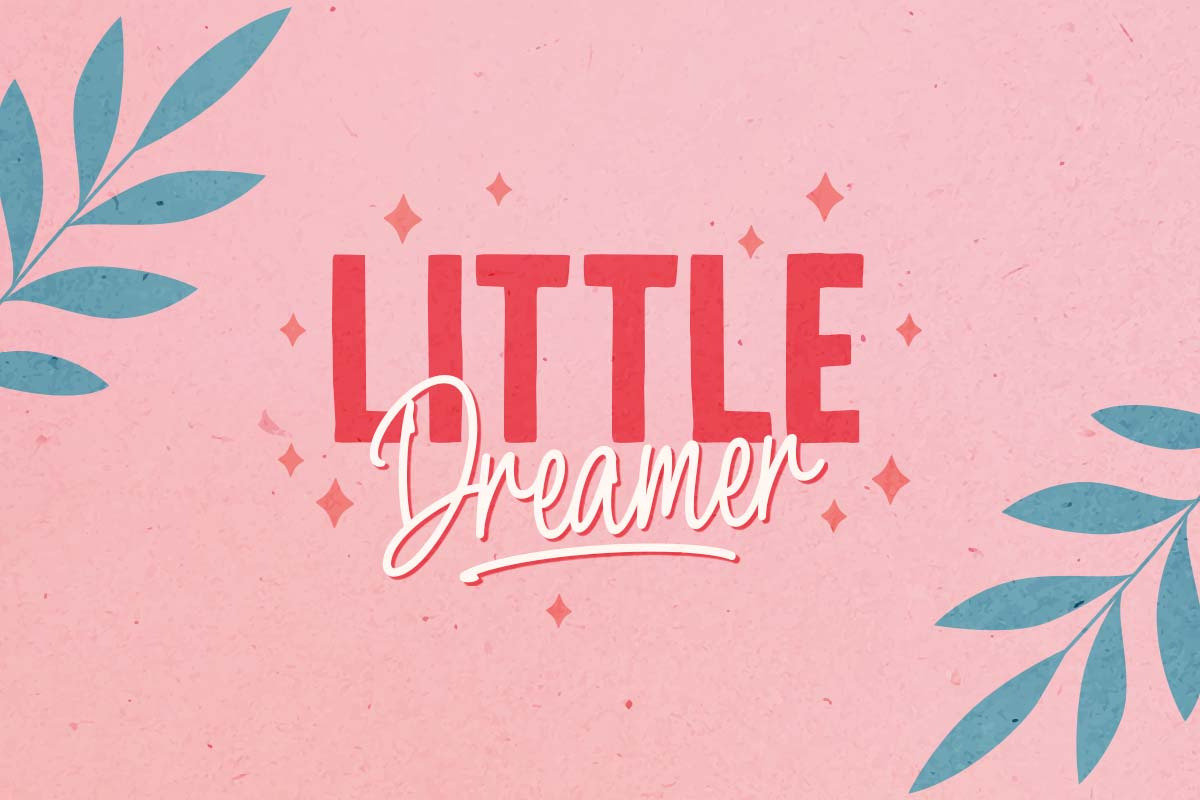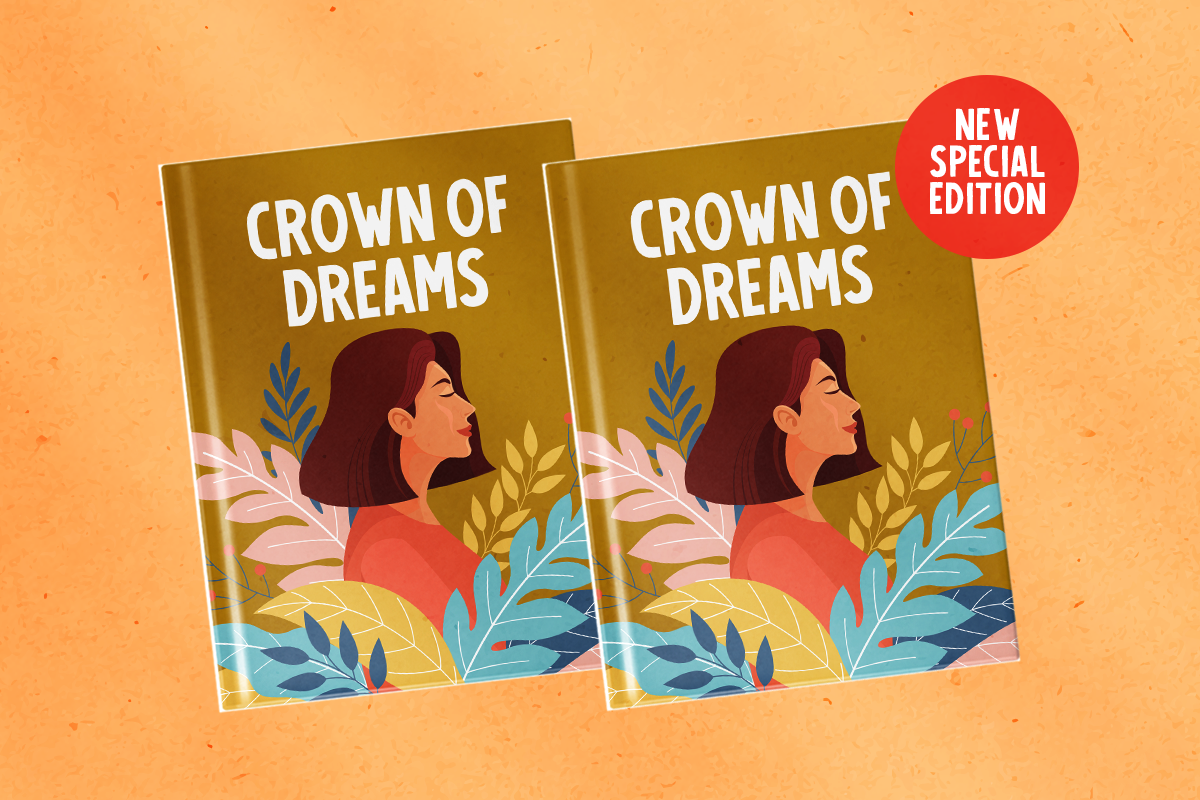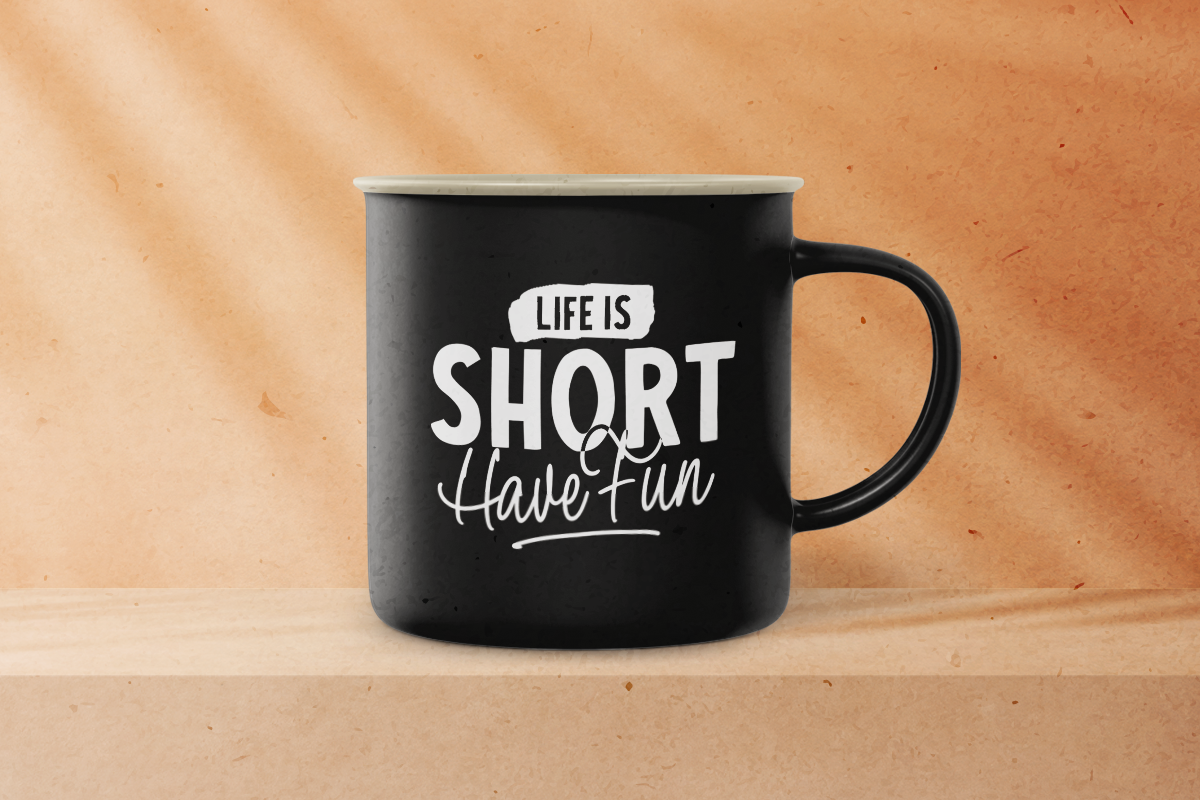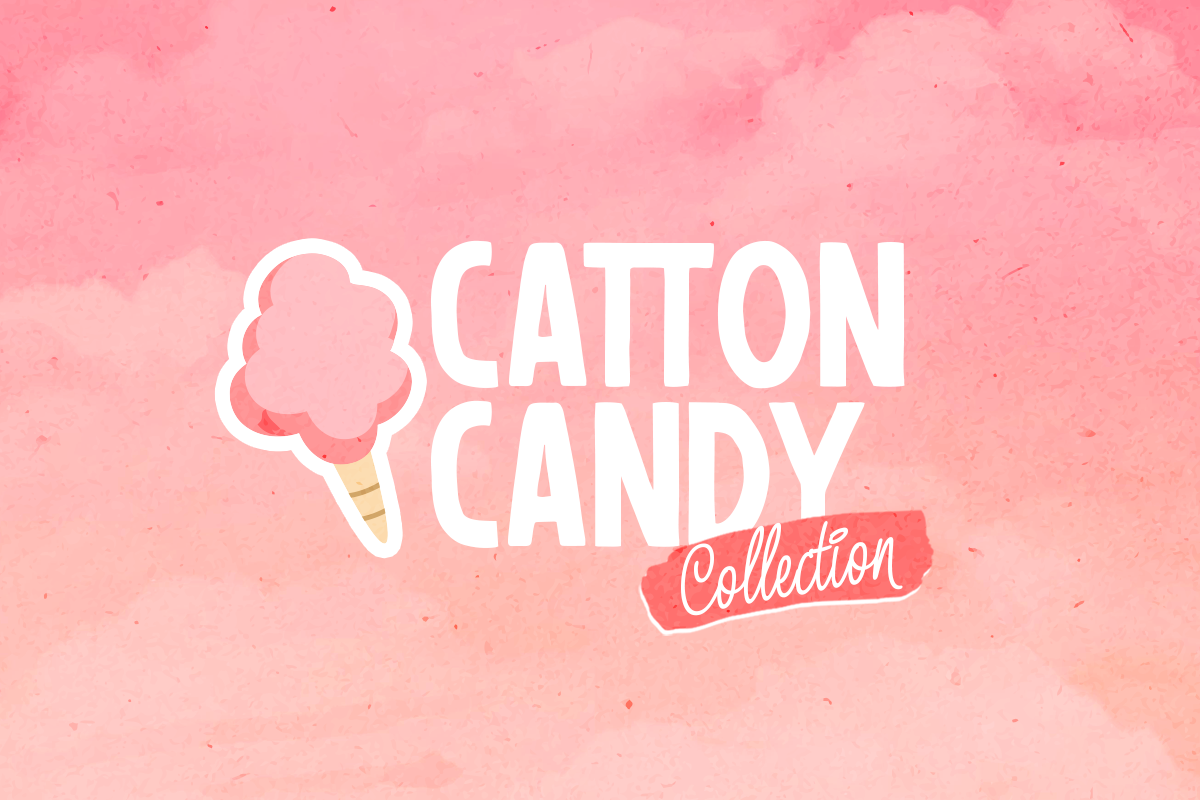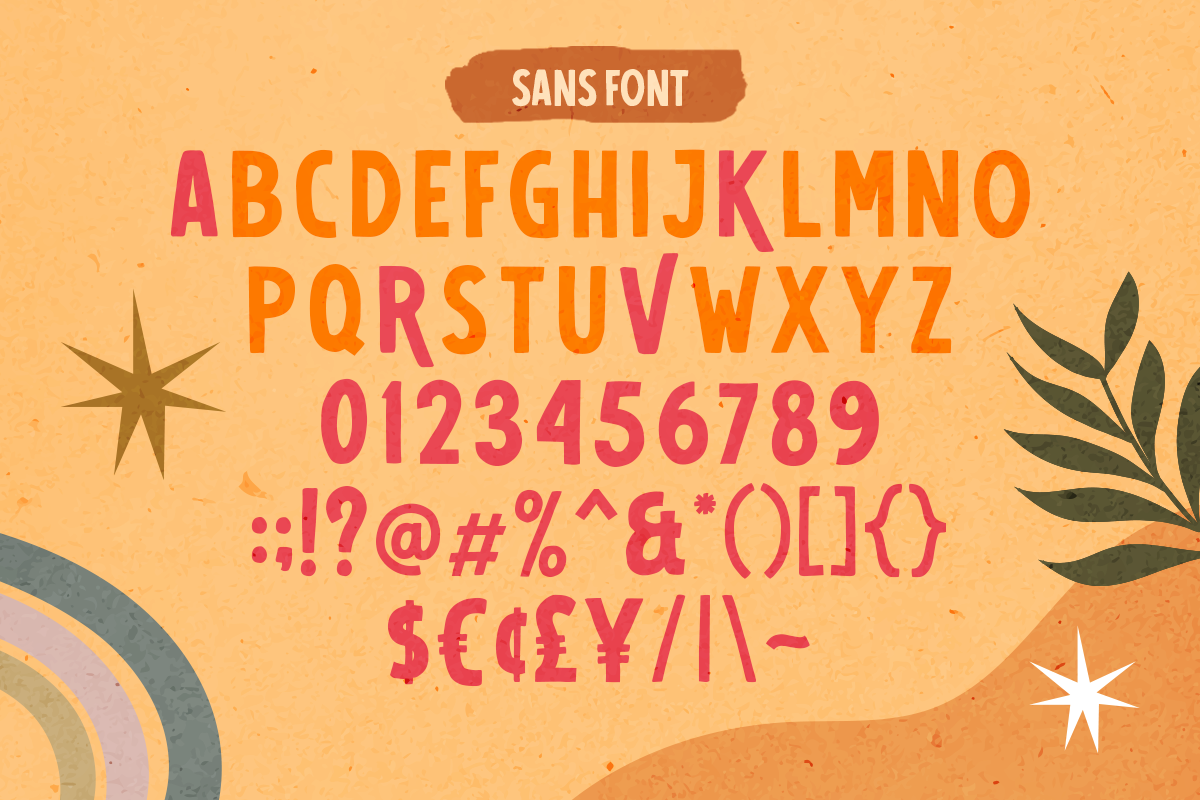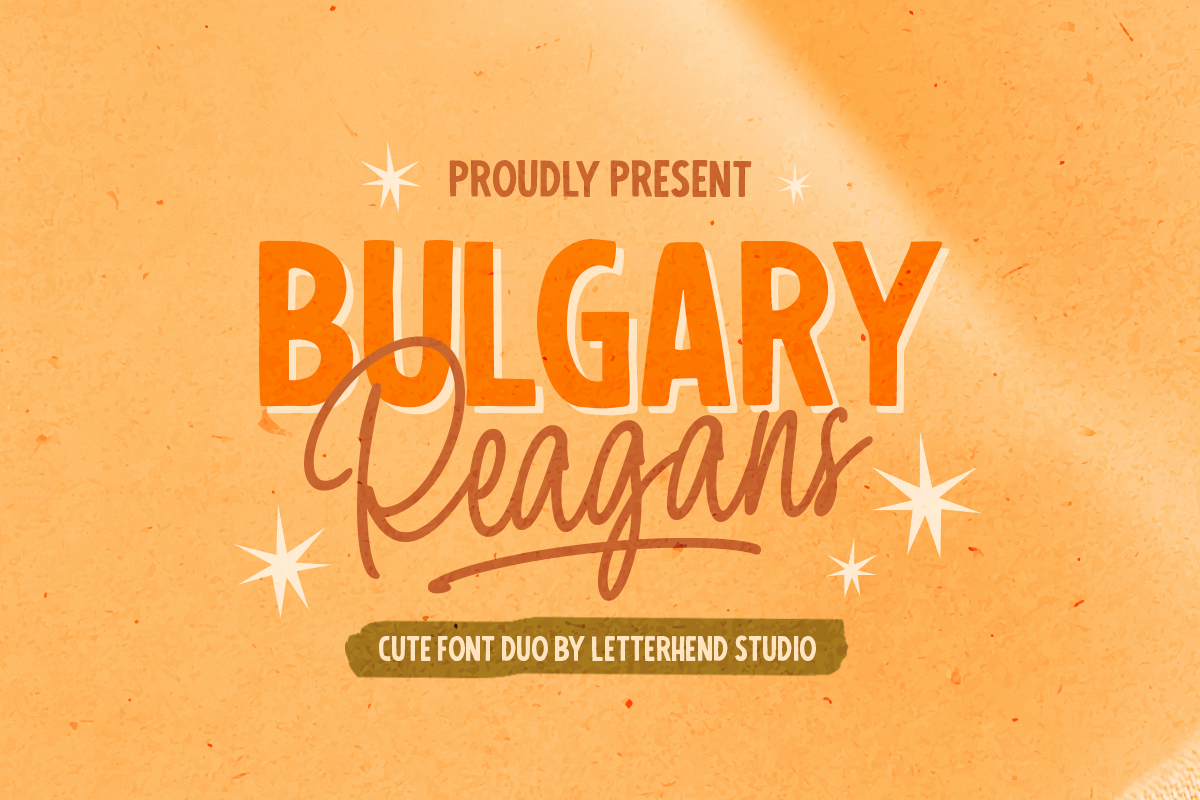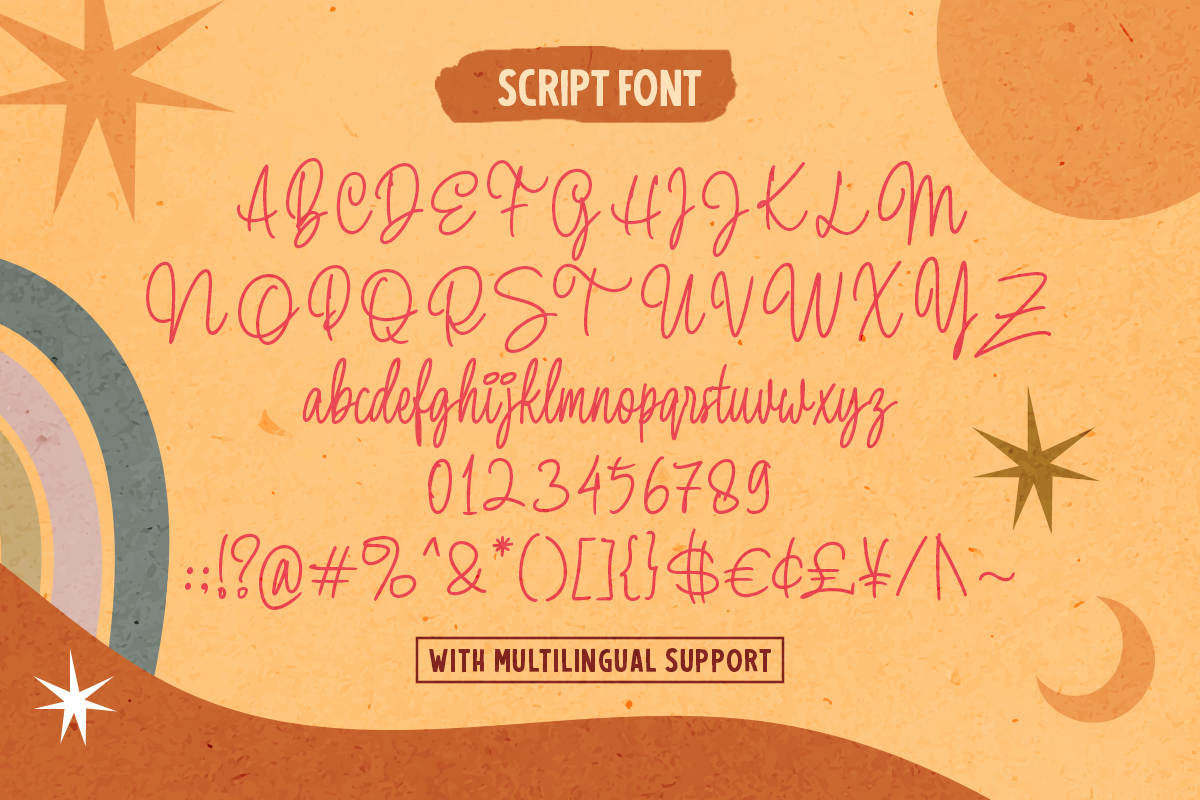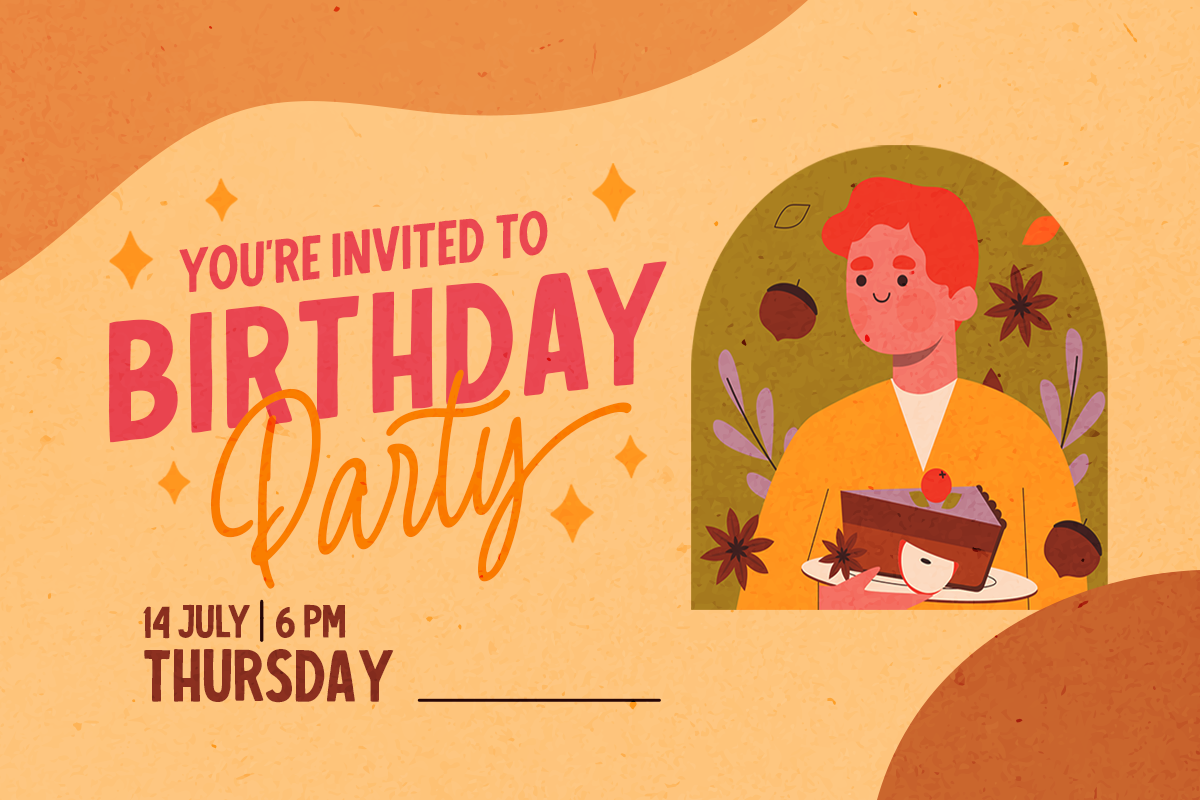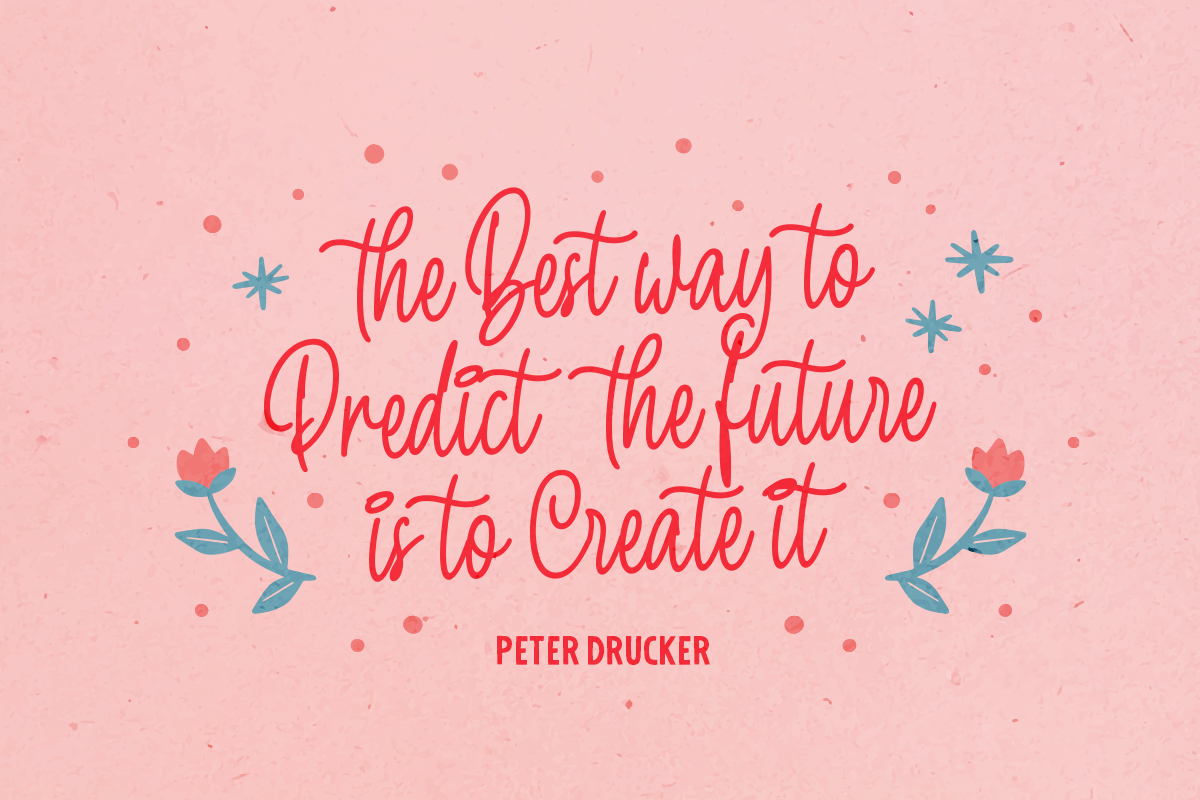
Bulgary Reagans - Cute Font Duo
Bulgary Reagans is a pair of font that brings the playful looks with casual feel. The handwritten sans serif combined with the natural hand writing script are the perfect match for you who needs a typeface for headline, logotype, apparel, invitation, branding, packaging, advertising etc.